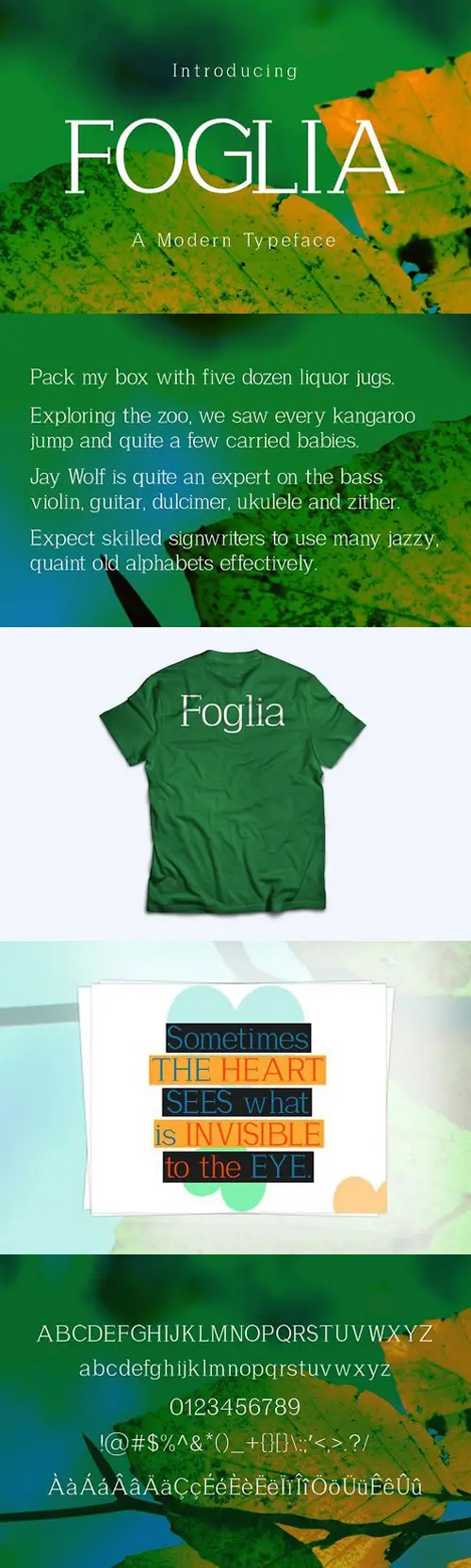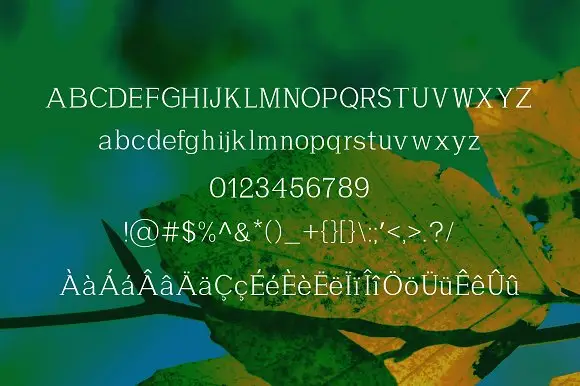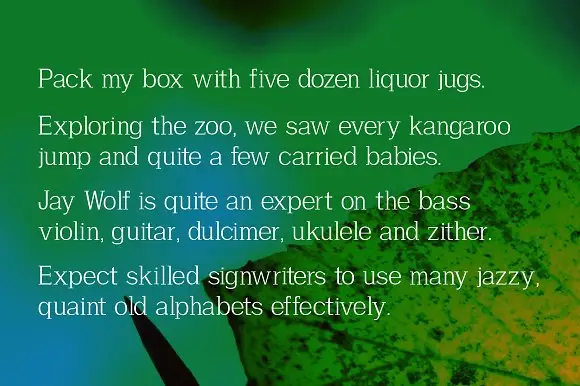
Foglia Typeface
The Foglia Typeface is a beautifully crafted font that embodies elegance and sophistication. With its unique letterforms and organic shapes, this typeface is perfect for a variety of design projects.
• Stylish and modern design
This typeface is ideal for branding, logos, web design, print materials, and user interfaces. Its distinctive style adds a touch of personality to any project.